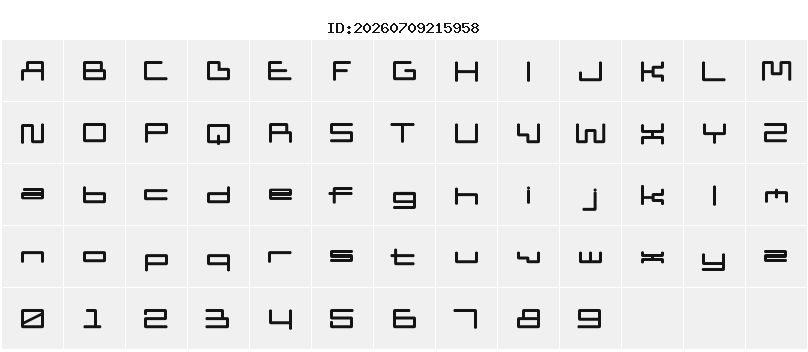
About DDD Pipe Bold.ttf
DDD Pipe Bold.ttf is a modern, elegant sans-serif font designed for ultimate readability and visual harmony. Perfect for branding, headlines, web design, and print materials.